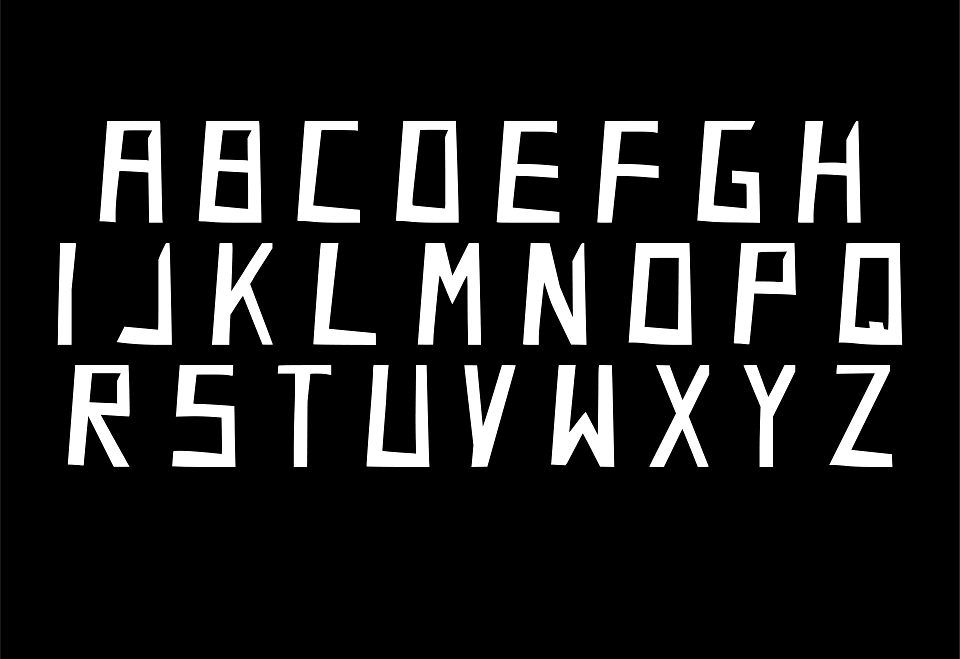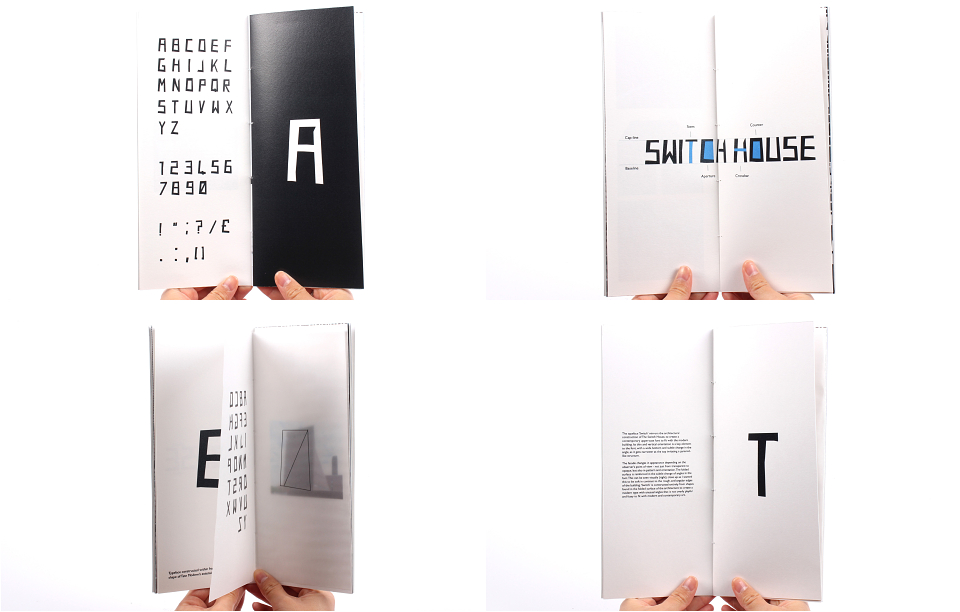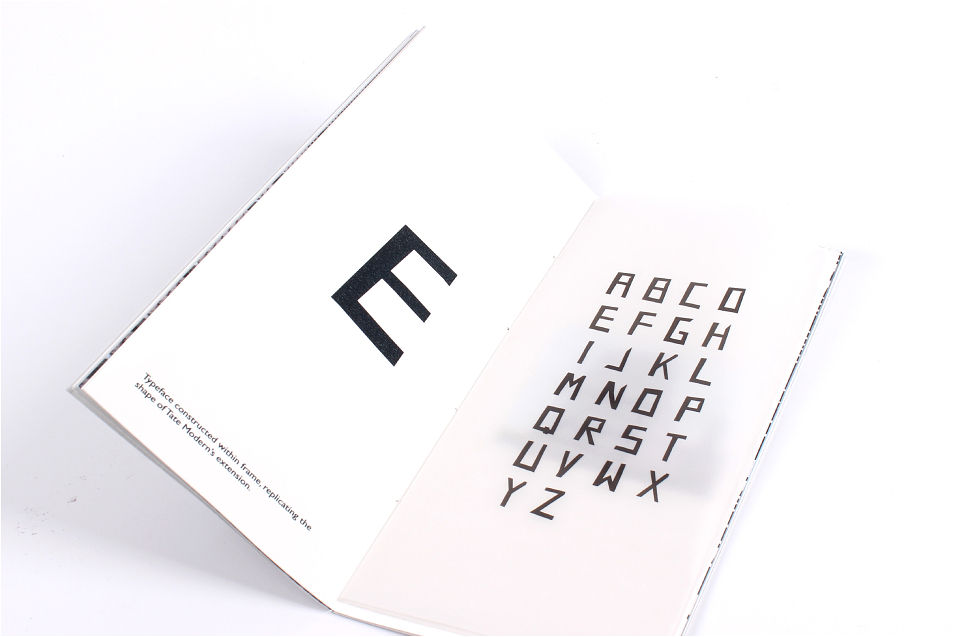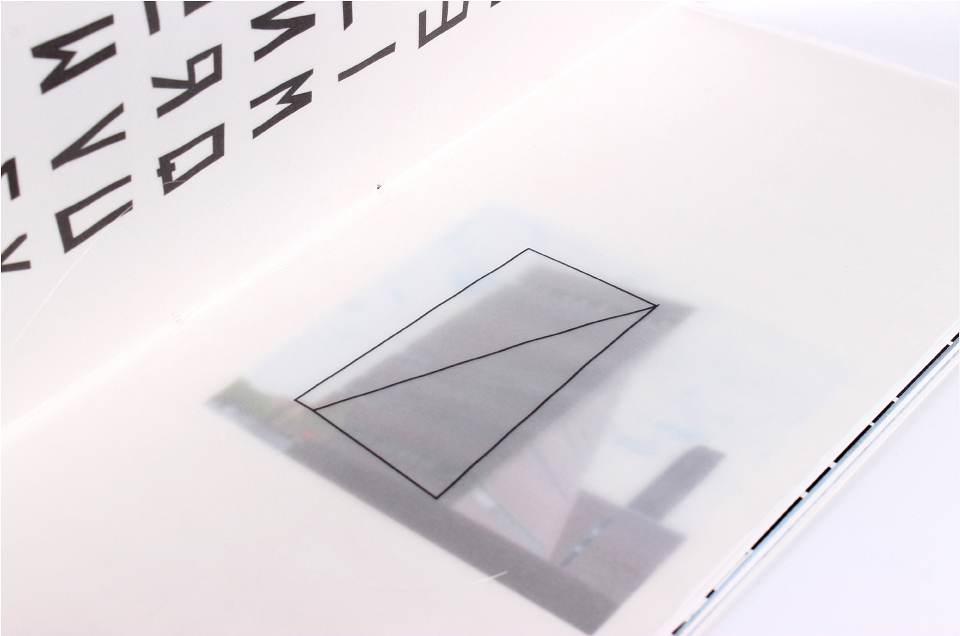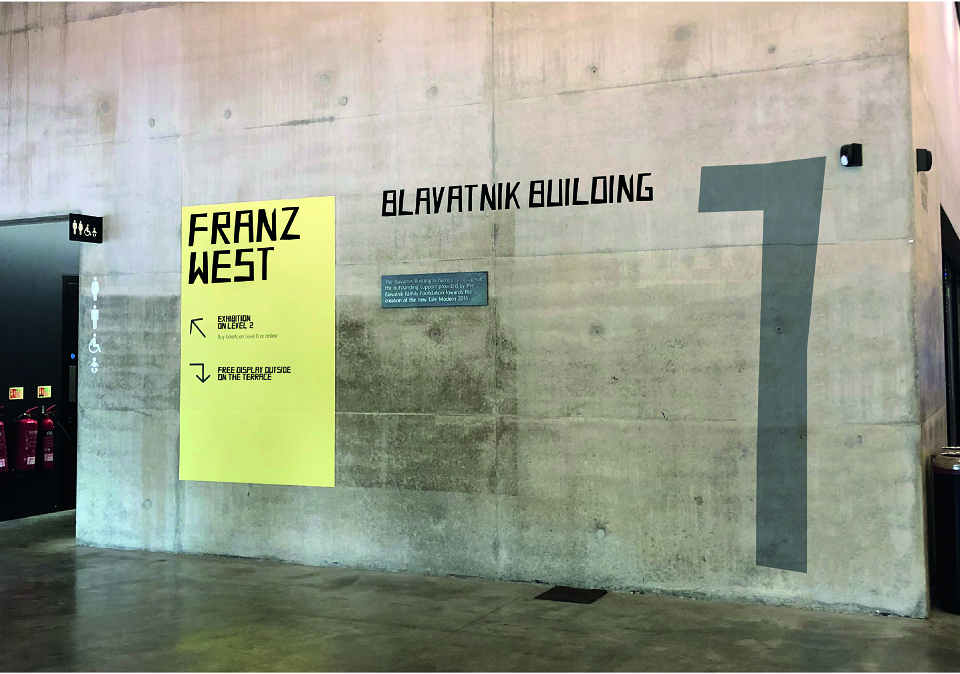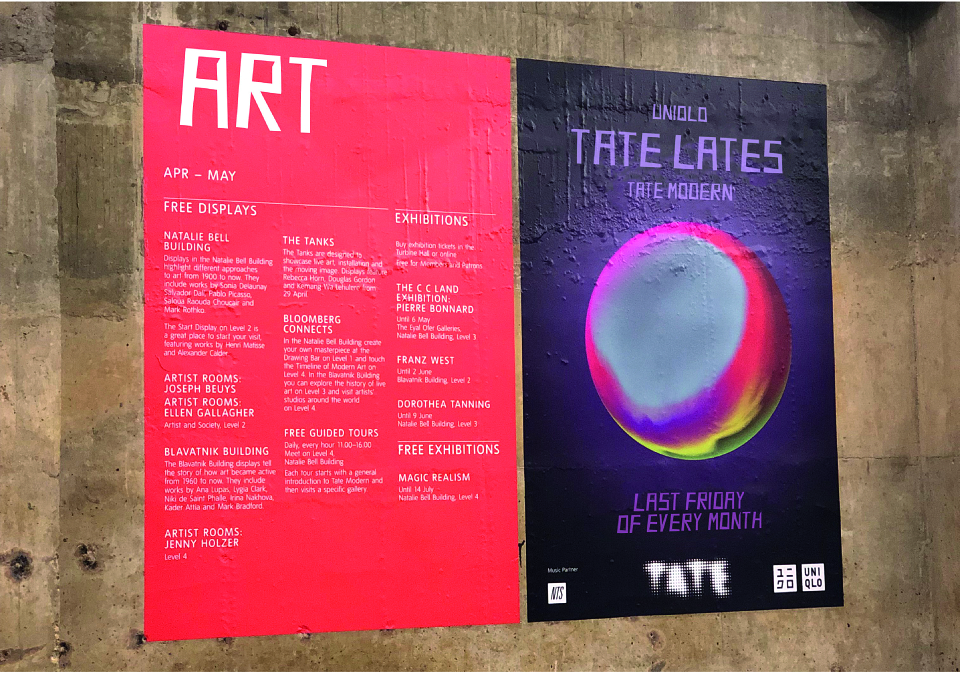
The typeface ‘Switch’ mirrors the architectural construction of The Switch House, the new extension to Tate Modern to create a contemporary upper-case font to fit with the modern building. Designed to be used for way-finding and print/materials at Tate Modern; the typeface will bridge the former Power Station to the Boiler House, connecting the two spaces/existing galleries. ‘Switch’ is a bold and modern typeface to compliment Tate Modern as a museum for modern and contemporary art; simultaneously the design combining raw industrial spaces with refined contemporary architecture.
Switch Typeface